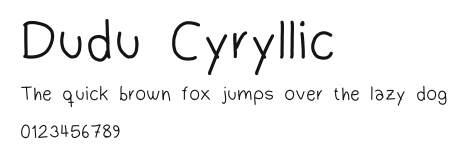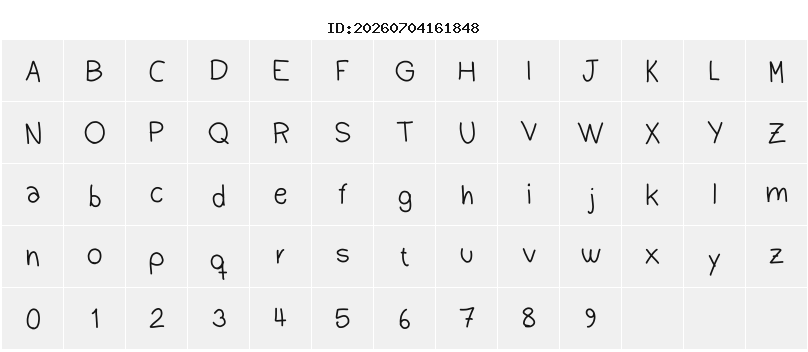
Dudu Cyryllic Preview
• Font Name: Dudu Cyryllic
• Full Font Name: Dudu Cyrillic
• PostScript Name: Dudu_Cyrillic
About Dudu Cyryllic.ttf
Dudu Cyryllic.ttf is a modern, elegant sans-serif font designed for ultimate readability and visual harmony. Perfect for branding, headlines, web design, and print materials.